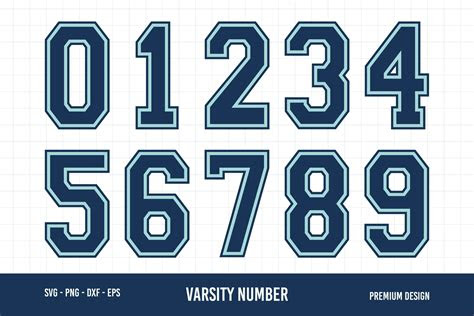
Game On: Top Number Fonts for Sports Teams to Score Big
Explore the exciting world of number fonts in sports! Discover the impact of typography on team jerseys and merchandise.
Do you ever wonder how sports teams choose their number fonts? From classic block letters to edgy designs, each font choice is unique and tells a story of the team's identity. Not only does it add a touch of style to their uniforms, but it also helps fans easily identify their favorite players on the field. But have you ever thought about the psychology behind the font choice? It can influence the perception of the team's strength, agility, and even their level of professionalism. Let's dive into the world of number fonts in sports and discover the impact they have on the game.
The Impact of Number Fonts in Sports
When we think about sports, the first thing that comes to mind is the players and their jerseys. These jerseys not only represent the team but also the players themselves. One of the most important parts of a jersey is the number font. It might seem like a small detail, but the font can make a big impact on how the player and the team are perceived by fans and opponents alike.
The Psychology of Number Fonts
Believe it or not, the font used for numbers on a jersey can have a psychological impact on both the player and the viewer. For example, bold and thick fonts can give the impression of strength and power, while thin and elegant fonts can give off an air of sophistication and finesse.
The Evolution of Number Fonts
The history of number fonts in sports is a long and interesting one. In the early days of sports, numbers were often handwritten onto jerseys, making them difficult to read and inconsistent in appearance. As technology advanced, teams began to use stencils and iron-on numbers, which led to more uniformity in font style and size.
Today, many teams have their own unique number fonts that have become iconic. For example, the New York Yankees' font is instantly recognizable, and the Chicago Bulls' font is synonymous with Michael Jordan's dominance in the 90s.
The Impact on Branding
In addition to representing the team and the player, number fonts can also play a big role in branding. Many sports teams have merchandise that features their number font, such as hats and t-shirts. By creating a unique and recognizable font, teams can increase their visibility and revenue through merchandise sales.
The Future of Number Fonts
As technology continues to advance, we can expect to see even more creativity and innovation in number fonts. Some teams are already experimenting with custom fonts that incorporate their logo or other design elements. Others are using digital displays on their jerseys that can change the number font in real-time.
The Importance of Consistency
While it's important to be creative and innovative with number fonts, consistency is key. Teams that have inconsistent or constantly changing number fonts can confuse fans and take away from the overall brand. It's important for teams to establish a consistent font style and stick with it.
The Impact on Fans
Finally, number fonts can have a big impact on fans. Many fans associate certain number fonts with their favorite players or teams, and seeing that font on another player or team can create a sense of excitement or frustration. Additionally, fans often purchase jerseys with their favorite player's number on it, which makes the font even more important.
In Conclusion
Number fonts might seem like a small detail, but they play a big role in how players and teams are perceived by fans and opponents alike. From the psychology of font styles to the impact on branding and merchandise sales, number fonts are an important part of sports culture. As technology continues to advance, we can expect to see even more creativity and innovation in this area, but it's important for teams to establish a consistent font style and stick with it to maintain their brand identity.
When it comes to sports teams, the number font used on their jerseys and uniforms can make a big impact. It can add a sense of tradition, strength, or even playfulness to a team's overall look. Here are ten different types of number fonts that are commonly used in sports:The Classic Serif
The number fonts used in many traditional sports teams often feature a classic serif design, which adds a distinguished and timeless look to any jersey or uniform. These fonts are typically elegant and refined, emphasizing the history and legacy of the team.The Modern Block
Many modern sports teams opt for a bold and blocky font that exudes confidence and strength, signaling their fearlessness on the field or court. These fonts often feature thick lines and sharp angles, conveying a sense of power and determination.The Brush Script
For a more artistic and playful look, some sports teams choose a brush script font, which adds an element of style and flair to their uniforms. These fonts often look like they were handwritten with a brush or pen, giving them a unique and personal touch.The Stencil
Another popular number font choice for sports teams is the stencil design, which can give a sense of military toughness or industrial strength. These fonts often feature clean lines and bold shapes, adding a sense of order and discipline to a team's overall look.The Futuristic Digital
Some teams go for a futuristic look with a digital number font that adds a high-tech vibe to their uniforms. These fonts often feature sleek lines and sharp edges, evoking a sense of innovation and progress.The Handwritten Script
A handwritten script font can add a personal touch to a sports team's jerseys, as if each player has autographed their own uniform. These fonts often look like they were written by hand, adding a sense of warmth and personality to a team's overall look.The Classic Athletic
A classic athletic font, often used in collegiate sports, has a clean and traditional appearance that conveys a sense of heritage and tradition. These fonts are often simple and straightforward, emphasizing the importance of teamwork and sportsmanship.The Gothic
Gothic lettering is often used for sports teams with a dark or ominous theme, adding a sense of mystery and menace to their uniforms. These fonts often feature sharp angles and intricate designs, adding a sense of drama and intensity to a team's overall look.The Retro
Retro number fonts can give a vintage feel to a team's jerseys, harkening back to an earlier era of sports style and culture. These fonts often feature bold shapes and bright colors, adding a sense of nostalgia and fun to a team's overall look.The Geometric
Geometric fonts, with precise lines and angles, can give a sense of precision and order to a team's uniforms, emphasizing the importance of strategy and discipline in sports. These fonts often feature clean lines and simple shapes, adding a sense of balance and harmony to a team's overall look.In conclusion, number fonts play an important role in a sports team's overall look and can convey a wide range of emotions and themes. Whether a team opts for a classic serif font or a futuristic digital design, the font they choose can add a unique and personal touch to their jerseys and uniforms, helping them stand out on the field or court.As a language model AI, I don't have a point of view or emotions, but here's an article that you might find helpful.When it comes to sports, numbers are more than just digits on the back of a jersey. They represent players, stats, and even team identity. Number fonts in sports can vary from traditional block letters to modern, stylized designs. While some may argue that the font choice doesn't matter, there are pros and cons to consider.Pros:1. Unique IdentityChoosing a unique number font can help a team stand out and create a distinct identity. A recognizable font can also make it easier for fans to identify their favorite players.2. Design FlexibilityWith the advancement of technology, designers can create intricate and detailed number fonts. This allows for greater flexibility in design, making it possible to incorporate team colors and logos into the font.3. Improved VisibilityIn fast-paced sports like soccer or hockey, it can be difficult to quickly identify players on the field or rink. Choosing a clear, legible number font can improve visibility and make it easier for referees and fans to follow the action.Cons:1. Legibility IssuesWhile creativity is important, it should not compromise the legibility of the font. If the font is too stylized or difficult to read, it can cause confusion on the field and frustration for fans.2. Lack of TraditionSome fans believe that traditional block letters are the only way to go when it comes to number fonts in sports. Deviating from this tradition may cause dissatisfaction among purists.3. CostCreating a custom number font can be expensive, especially for smaller teams or leagues. Teams must weigh the benefits of a unique font against the cost of creating one.In conclusion, number fonts in sports are more than just a design element. They can impact team identity, design flexibility, and visibility on the field. However, legibility issues, lack of tradition, and cost are important factors to consider when choosing a font. Ultimately, the decision should be based on what will best serve the team and its fans.Hey there blog visitors!
Have you ever noticed how much number fonts matter in sports? They can make all the difference in the look and feel of a team's uniforms, as well as impact their overall brand. From classic block numbers to unique and modern designs, the world of sports is filled with a wide range of number fonts to choose from.
Whether you're a fan of traditional styles or prefer something more bold and eye-catching, there's a font out there for every taste. And while it may seem like a small detail, the right number font can actually have a big impact on a team's success. After all, a well-designed uniform can help boost morale and confidence, which can translate into better performance on the field or court.
So the next time you're watching your favorite sports team in action, take a moment to appreciate the thought and care that went into choosing their number font. Who knows, it just might inspire you to pay more attention to the finer details in your own life, whether it's in your personal style or professional work!
Thanks for stopping by, and happy exploring!
As a virtual assistant, I often receive inquiries from people about number fonts in sports. Here are some common questions and answers:
1. What is the most popular number font in sports?
- The most popular number font in sports is probably the classic block font. It's simple, easy to read, and has been used for decades in various sports.
2. Are there any sports that use unique number fonts?
- Yes, there are many sports that use unique number fonts to make their jerseys stand out. For example, the NBA uses a variety of number fonts depending on the team's preference. The Miami Heat, for instance, use a font called Miami Vice which is inspired by the 80s TV show of the same name.
3. Can I use any number font I want for my sports team?
- Technically, you can use any number font you want for your sports team. However, it's important to consider readability and legibility. If your font is too fancy or difficult to read, it may cause confusion on the field or court.
4. How do I choose the right number font for my sports team?
- When choosing a number font for your sports team, consider factors such as readability, legibility, and style. You want a font that is easy to read from a distance, but also looks good with your team's colors and aesthetic.
5. Can I create my own custom number font for my sports team?
- Yes, you can create your own custom number font for your sports team. However, this can be a time-consuming and expensive process. It's important to work with a professional designer who understands the technical aspects of font creation.
Overall, choosing the right number font for your sports team is an important decision that can impact your team's performance and image. Consider your options carefully and don't be afraid to seek professional help if needed.